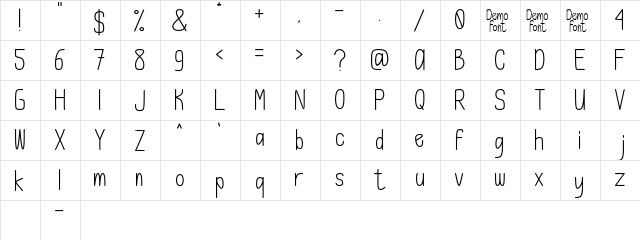
Lemonade Thin Regular
Design Context for Lemonade Thin Typeface
Lemonade Thin is a composed and adaptable typeface that performs quietly and consistently across a wide range of design contexts. The delicate stroke weight brings airiness and refinement to layouts.